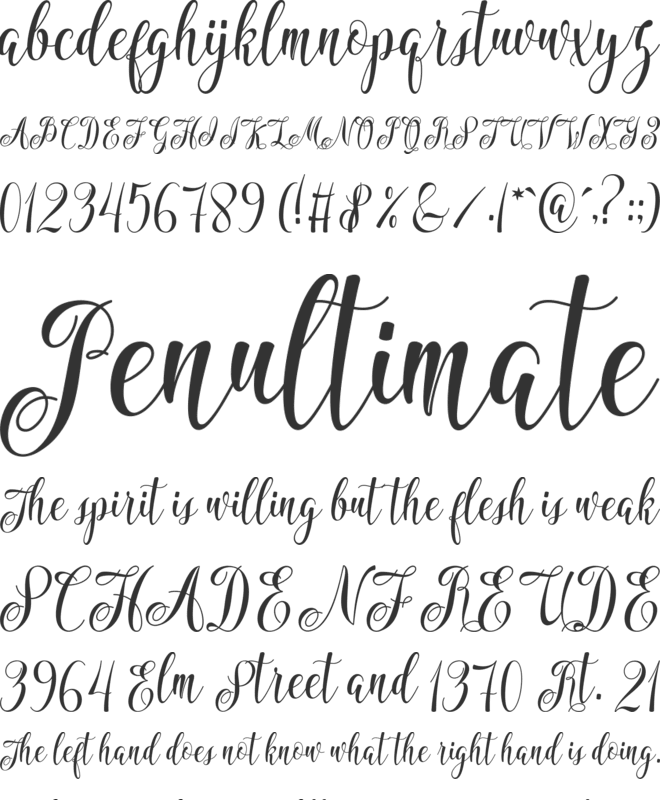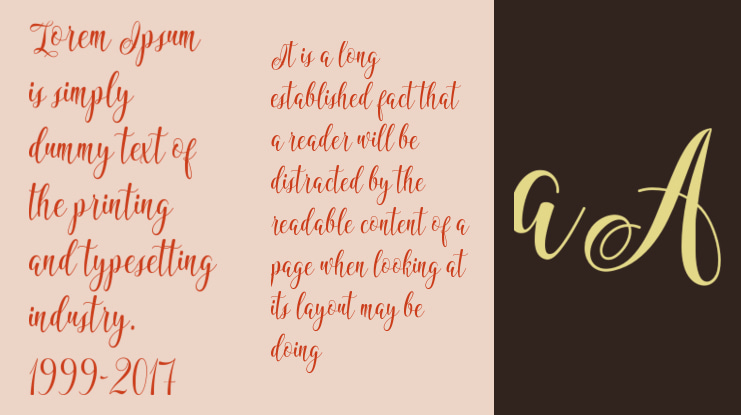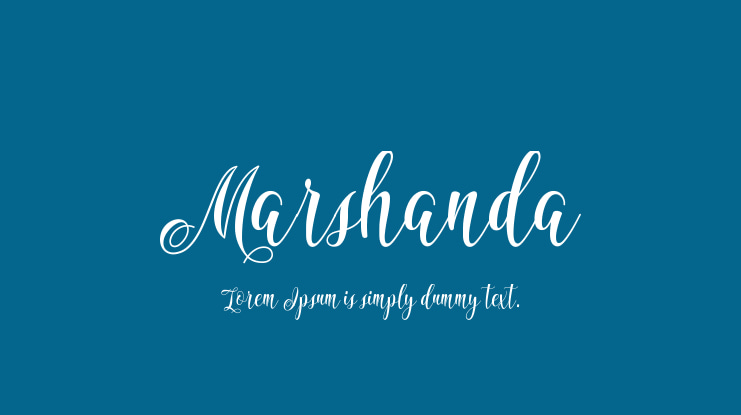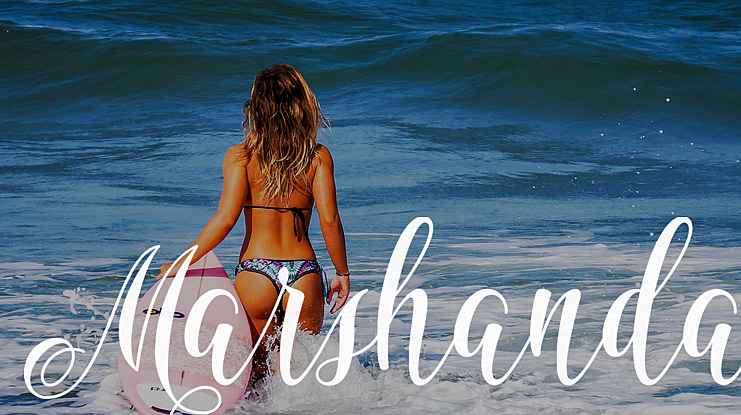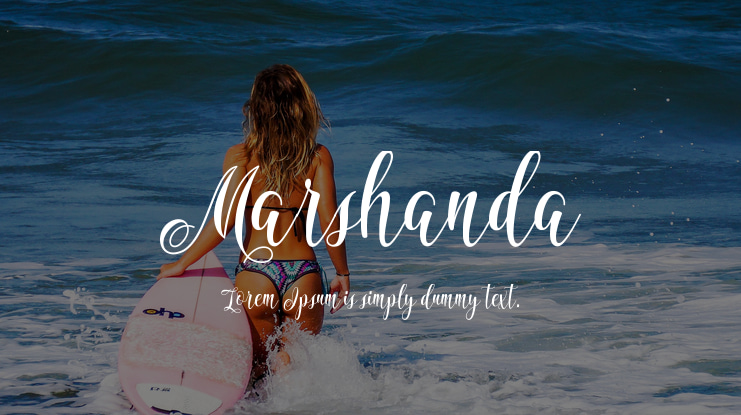
Marshanda Font
Marshanda is a script font that has the characteristic handwriting, it is very suitable to make certain label and event business and you could be using for a unique piece. Visit here to get full version